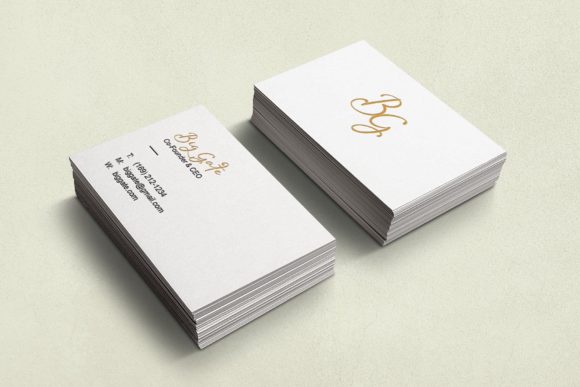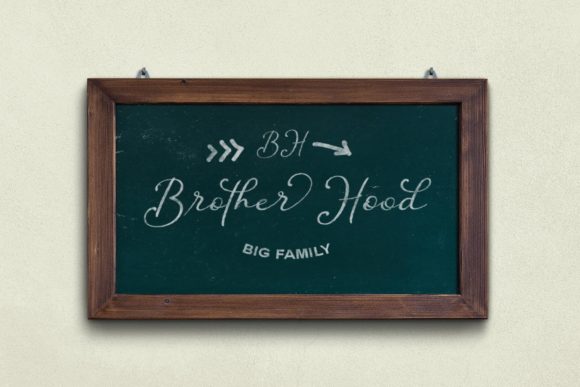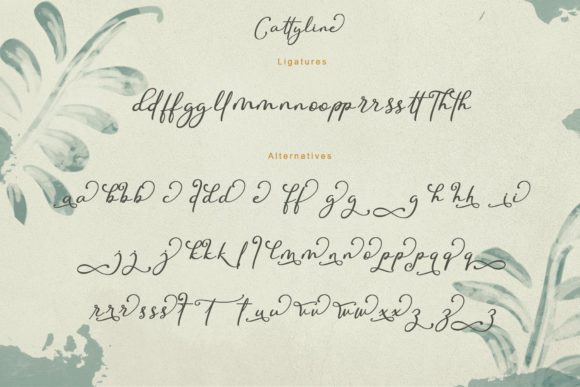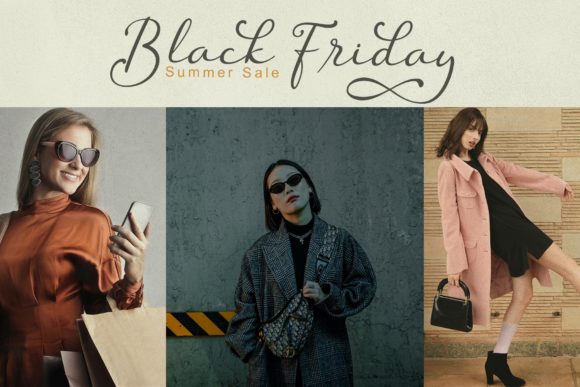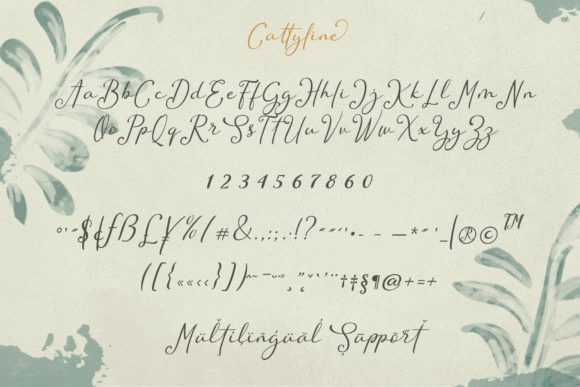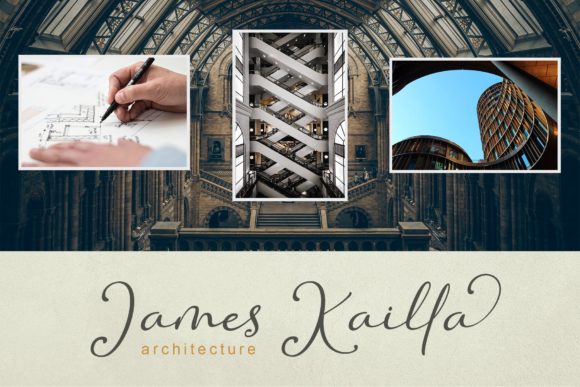
Discover the Charm of Cattyline Font: Elevate Your Designs with this Unique Handwritten Style
Are you tired of using the same old fonts in your designs? Look no further! Cattyline Font is a beautiful and unique handwritten font that can add a touch of elegance and personality to your projects. Whether you’re a designer, crafty DIY enthusiast, or social media influencer, this versatile font is perfect for a wide range of applications, from printed quotes and invitation cards to product packaging and website design.
What Makes Cattyline Font Special?
Cattyline Font stands out from the crowd with its distinctive handwritten style, characterized by flowing lines, delicate curves, and a touch of whimsy. This font is carefully crafted to evoke a sense of warmth, friendliness, and approachability, making it ideal for designs that require a personal touch. The unique lettering style of Cattyline Font ensures that your text will be noticed and remembered, setting it apart from more traditional fonts.
Endless Design Possibilities with Cattyline Font
The versatility of Cattyline Font is one of its most appealing features. This font can be used in a multitude of design projects, including:
• Printed Quotes: Add a touch of sophistication to your inspirational quotes, making them perfect for posting on social media or printing on posters and flyers.
• Invitation Cards: Make your invitations stand out with a beautiful, one-of-a-kind font that sets the tone for a special event.
• Social Media: Elevate your social media posts with a font that adds a personal and creative touch to your captions and graphics.
• Product Packaging: Give your products a unique and eye-catching label that reflects your brand’s personality and style.
• Websites: Enhance your website’s visual appeal with a font that adds a touch of elegance and sophistication to your content.
Why Designers and Crafters Love Cattyline Font
Cattyline Font has quickly become a favorite among designers and crafty DIY enthusiasts, and for good reason. Here are just a few reasons why:
• Easy to Read: Despite its unique style, Cattyline Font is highly legible, making it perfect for both short phrases and longer texts.
• Customizable: The font comes in a range of styles and weights, allowing you to tailor it to your specific design needs.
• Time-Saving: With Cattyline Font, you can create stunning designs in a fraction of the time it would take with more complex fonts.
• Unique Aesthetic: The font’s distinctive style ensures that your designs will stand out from the crowd and leave a lasting impression.
Tips for Getting the Most Out of Cattyline Font
To truly make the most of Cattyline Font, here are a few design tips to keep in mind:
• Pair it with Neutrals: Balance out the boldness of Cattyline Font by pairing it with neutral colors and backgrounds.
• Experiment with Sizes: Play around with different font sizes to create visual interest and emphasize key points.
• Add Texture: Consider adding texture to your design to give it a more organic, hand-crafted feel.
Font Name Cattyline Font
Author Alit Design
Cattyline Font is a game-changer for designers and crafters looking to add a unique touch to their projects. With its beautiful handwritten style, versatility, and ease of use, this font is sure to become a staple in your design toolkit. Whether you’re creating printed quotes, invitation cards, social media graphics, product packaging, or website content, Cattyline Font is the perfect choice for adding a touch of elegance and personality to your designs.